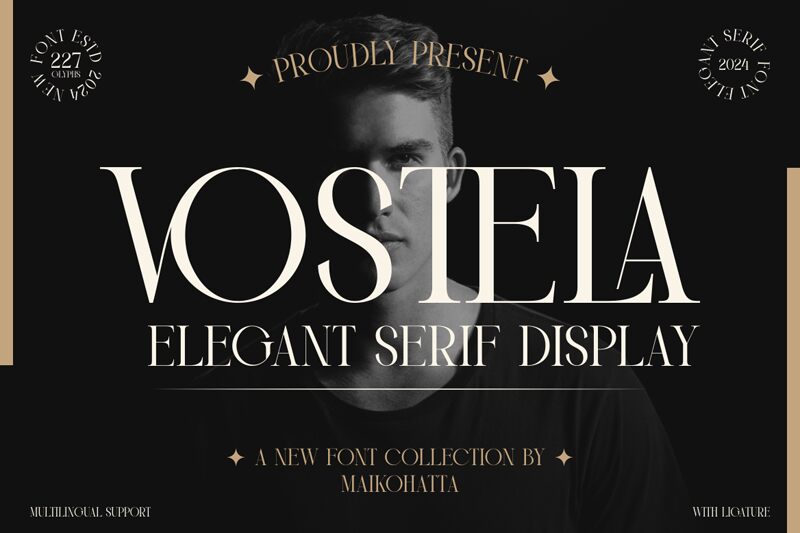
Vostela font family by Gilang Ternadho is a serif typeface packed in a free font family. It exposes sleek and elegant lines with a refined, luxurious feel. This is achieved by integrating a sophisticated, timeless, and classic serif influence modified to appear modern and can be used for a variety of purposes.
Use Vostela in advertising as well as branding and identity design. It’s an excellent tool to create an upscale looking logo for your brand, and for packaging and label design. Use it also for posters, print invitations, and other impactful print and digital format displays.